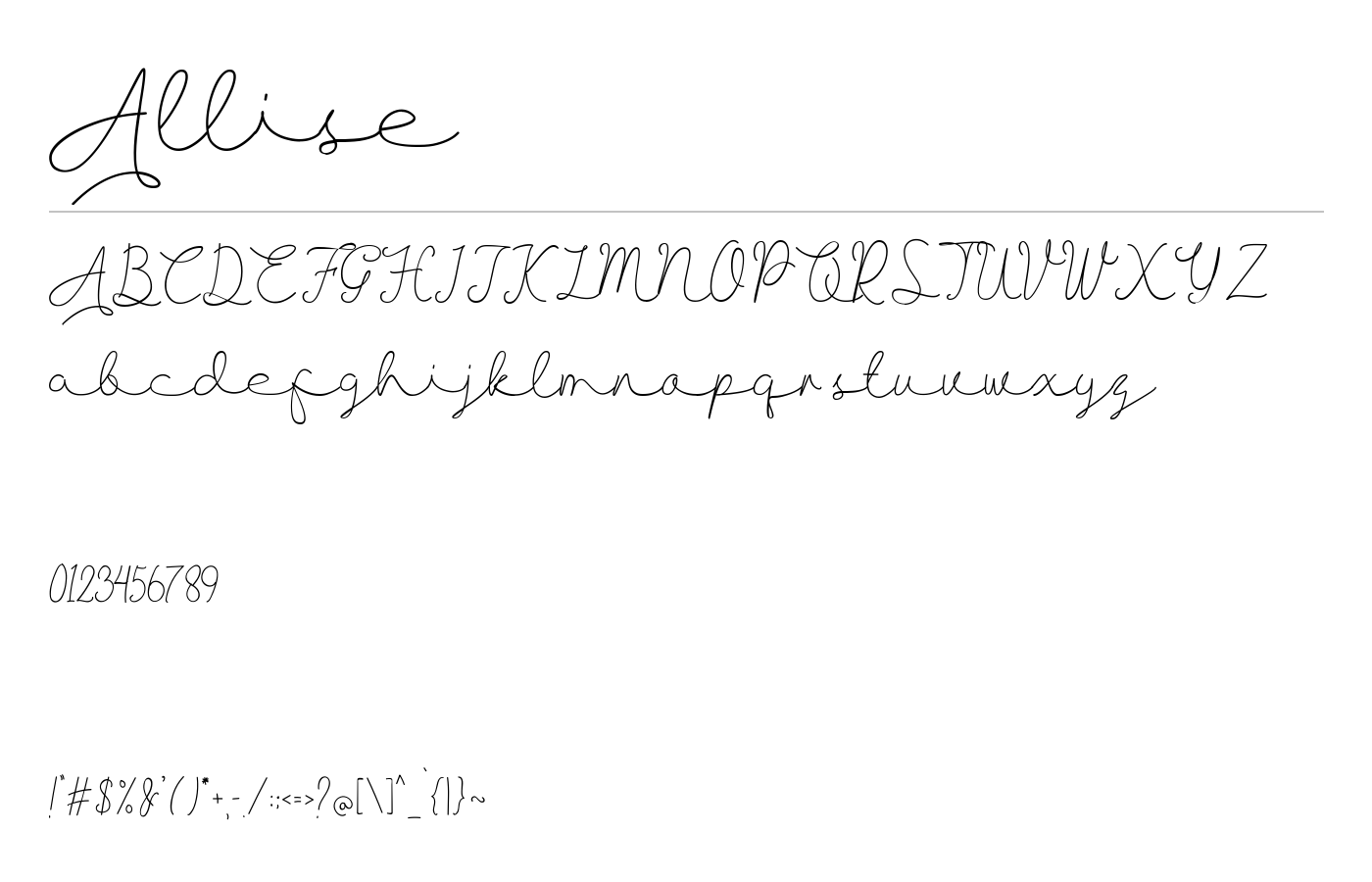
Allise is a delicate, script-style font with a light, airy feel created by its thin, flowing strokes that mimic elegant handwriting. Its tall, narrow letterforms and smooth connections give it a refined yet casual personality, making it ideal for personal branding, wedding invitations, and creative projects that seek a graceful, handwritten touch. This font’s charming and sophisticated style works best for headlines and decorative text where a soft, intimate atmosphere is desired.
Allise Font
About Allise Font
| Font family | Allise Font |